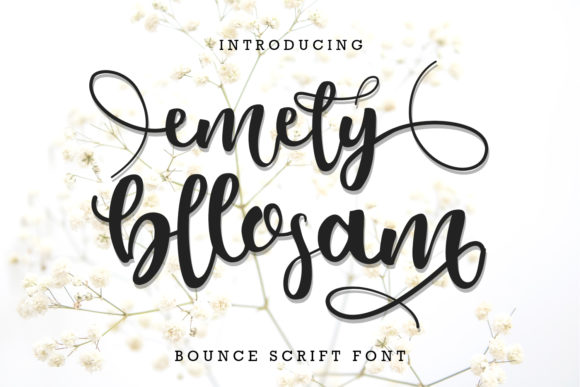
Meet Emely Bllosom Font, the enchanting script font that will make your designs radiate love and joy! Crafted by Nerdstudio, this handwritten font exudes a playful and cheerful vibe, perfect for capturing the essence of Valentine's Day. Its bouncy characters dance across your screen, adding a touch of whimsy and delight to every project you undertake.
With Emely Bllosom Font, you can effortlessly transform your ideas into captivating designs that speak to the heart. Its smooth curves and elegant flourishes create a mesmerizing visual flow, drawing the eyes of your audience and leaving them utterly charmed. Whether you're designing cards, invitations, social media posts, or logos, this font will infuse your creations with a touch of heartfelt magic.
But what truly sets Emely Bllosom Font apart is its versatility. It's not just limited to Valentine's Day designs; it shines equally well in a wide range of projects. From whimsical illustrations to eye-catching headlines, from heartfelt greeting cards to heartwarming invitations, this font adapts effortlessly to your vision, adding a touch of playfulness and charm wherever it goes.
To top it off, Emely Bllosom Font is PUA encoded, ensuring effortless access to all its glyphs and swashes. Unleash your creativity and explore endless possibilities, crafting designs that resonate with your audience and leave them smitten with your creations.
So, if you're searching for a font that embodies love, joy, and boundless creativity, look no further than Emely Bllosom Font. Its charming personality and versatility will transform your designs into captivating masterpieces, leaving a lasting impression on all who encounter them.